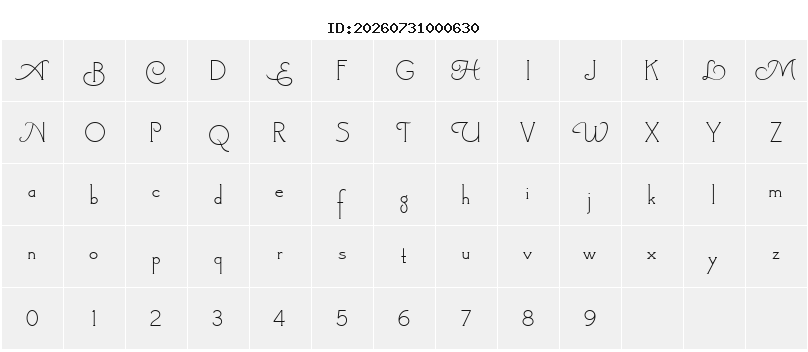
Londonderry Air NF Preview
• Font Name: Londonderry Air NF
• Full Font Name: Londonderry Air NF
About Londonderry Air NF.ttf
Londonderry Air NF.ttf is a modern, elegant sans-serif font designed for ultimate readability and visual harmony. Perfect for branding, headlines, web design, and print materials.